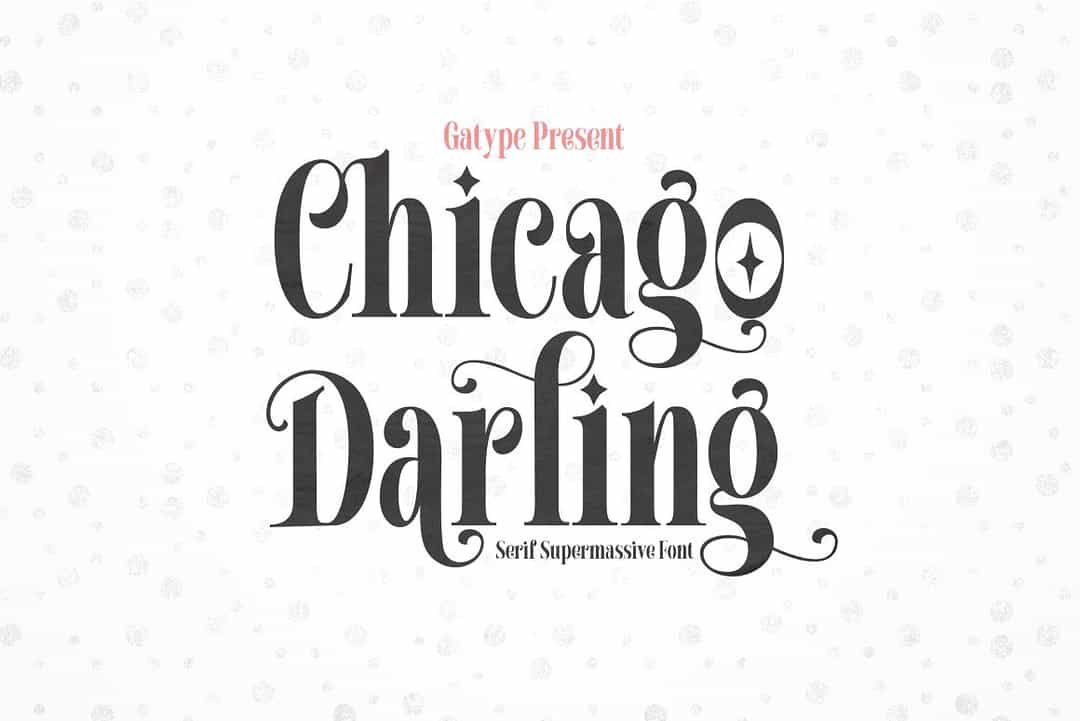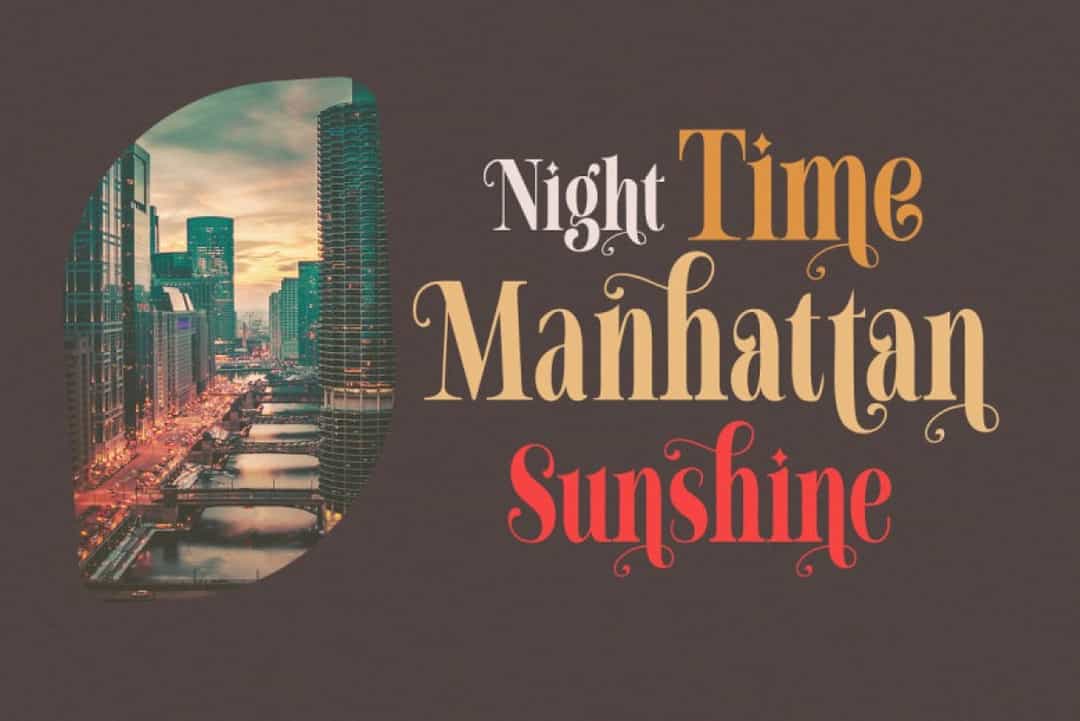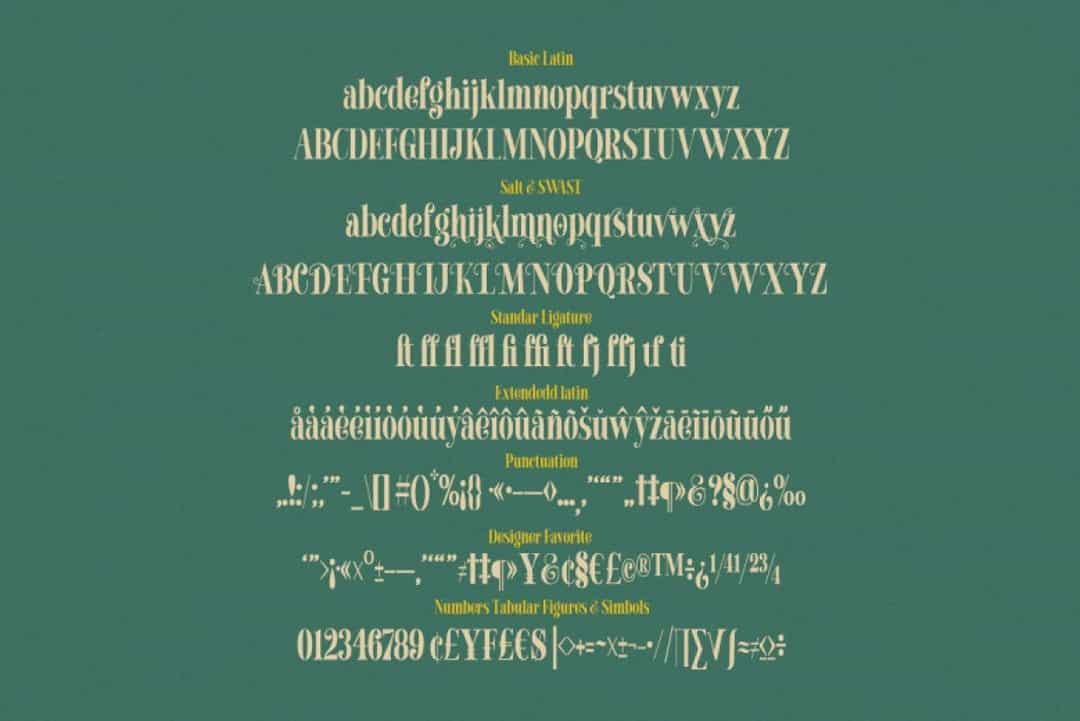
Chicago Darling Serif font is an elegant and sophisticated font with multiple characters and tie. Lifestyle friendly fonts like Chicago Darling can add modern styles. Chicago Darling was designed to fit in seamlessly into every design project and design style.